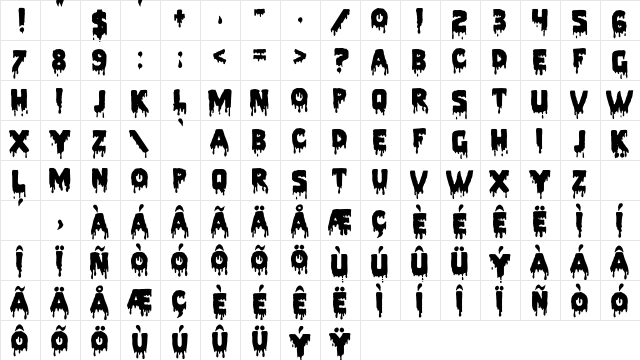
Complete Pieces NFI Regular glyph index. Displaying only characters natively supported by Pieces NFI Regular font.
Pieces NFI is a composed and adaptable typeface that performs quietly and consistently across a wide range of design contexts.